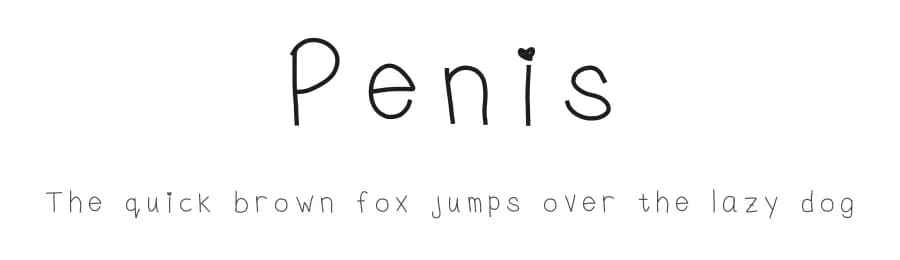
About Penis Font
Penis is a script & handwritten font designed by Chloe Clark. It includes 56 glyphs, a medium weight, TTF (TrueType) format, and 89 languages. Penis is free to download; check the license details on this page before commercial use. Script & handwritten fonts like Penis work best for wedding invitations, greeting cards, signatures, and elegant branding.
Penis Font is a script font that shines as a display or heading face. Pair it with a clean sans-serif or serif font for body text β the contrast creates a clear hierarchy while the two styles stay balanced and easy to read.
Penis Font is a script handwritten typeface by Chloe Clark, ideal for logos, invitations, branding, and creative projects.